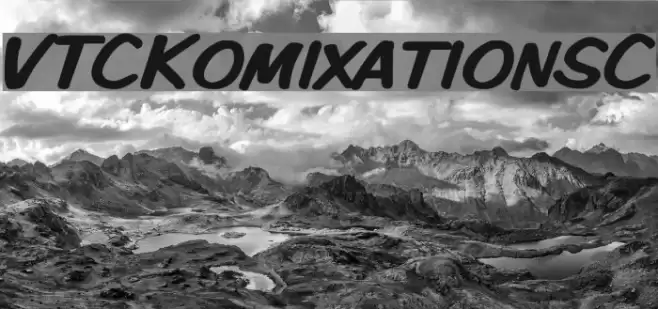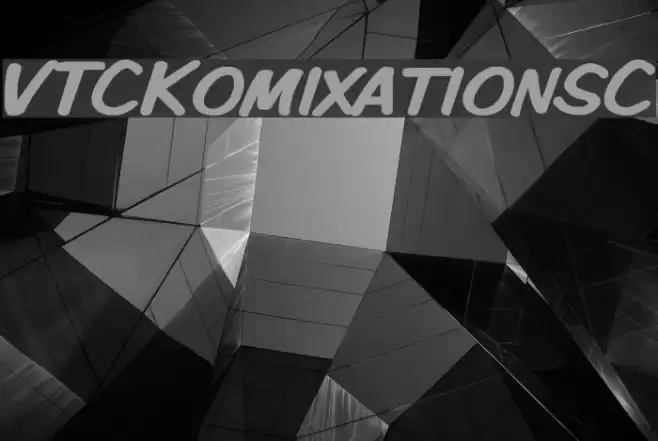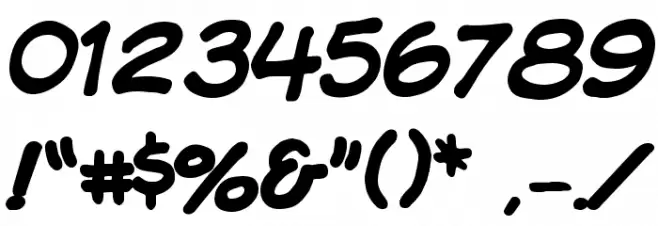
VTCKomixationSC Font
VTCKomixationSC Description
This playful and bold font features a handwritten style with a comic-like appearance. The letters are slightly slanted, giving a dynamic and energetic feel. The strokes are thick and rounded, contributing to a friendly and approachable look. The characters are well-spaced, ensuring readability while maintaining a casual vibe. This font includes a full set of uppercase and lowercase letters, numbers, and a variety of special characters, making it versatile for various design needs.
A bold, comic-style handwritten font with a playful and dynamic appearance from Uncategorized fonts.
- Proposed Projects: Ideal for comic books, children's books, playful branding, and casual posters.
- Overall Style: Playful